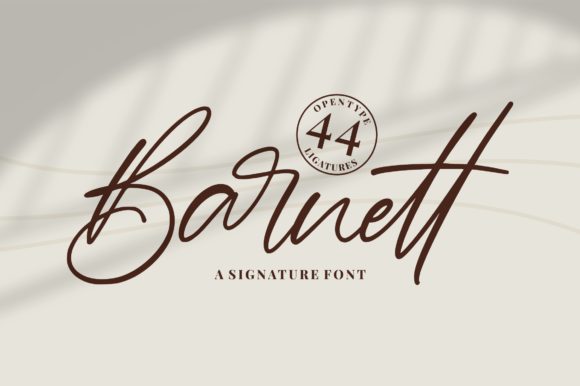
Get ready to be swept away by the breathtaking charm of Barnett Font, a calligraphic masterpiece that will ignite your creativity and transform your designs into works of art.
Indulge in the exquisite beauty of this handwritten font, crafted with meticulous care and a touch of elegance that will leave you spellbound. Barnett is not just a font; it's an invitation to let your imagination soar and your words dance across the page with unmatched grace.
Whether you're a seasoned designer or just starting your artistic journey, Barnett Font is the perfect tool to elevate your projects to new heights. Its versatility knows no bounds, making it an indispensable addition to your design toolbox. From enchanting branding to captivating headings, from elegant wedding invitations to unforgettable signatures, Barnett has the power to transform the ordinary into the extraordinary.
Dive into a world of endless possibilities with Barnett Font. Let its enchanting curves and graceful strokes weave their magic into your designs. Experience the joy of creating masterpieces that captivate, inspire, and leave a lasting impression.